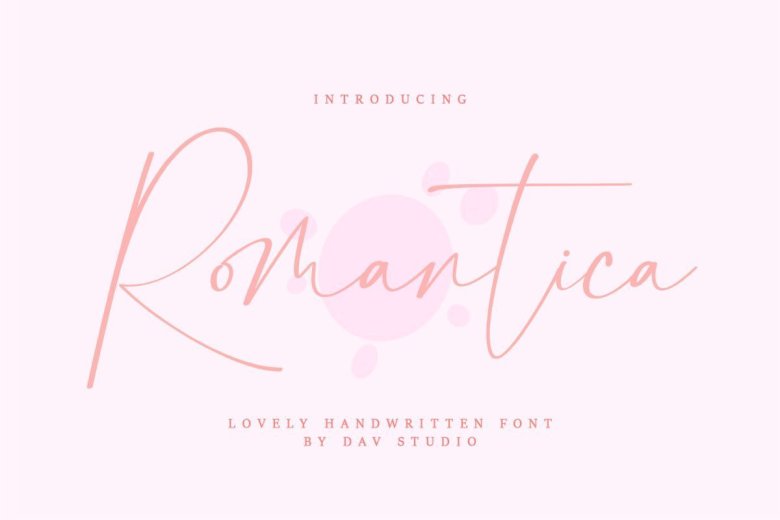
Romantica Lovely Handwritten Script Font
Glad to introduce you a new Romantica Script Font. Romantica is a lovely handwritten font with curves and strokes equipped with standard ligatures like your own handwriting, perfect for your DIY designs such as business cards, wedding invitations, youtube videos, etc.